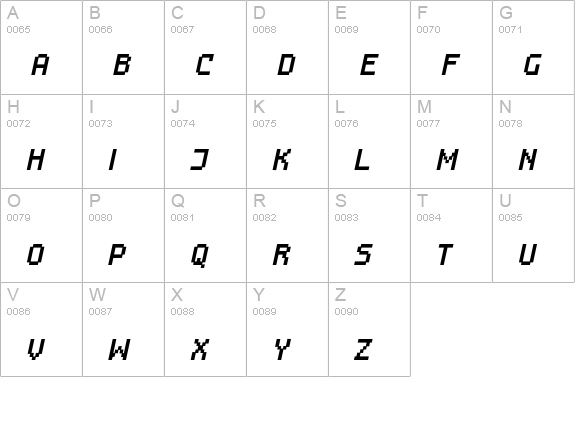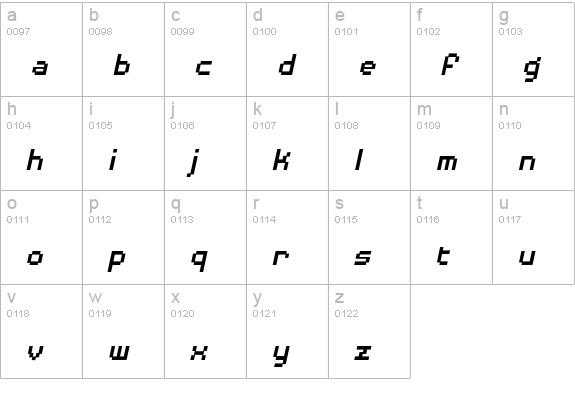
DisposableDroid BB Italic is a distinctive, italic variant in the DisposableDroid typeface family \xE2\x80\x94 well suited to design and typography projects.
Introducing DisposableDroid BB Italic font, an exquisite typeface designed for those seeking a unique and futuristic touch to their projects. This font embodies the perfect blend of elegance and modernity, making it ideal for various creative endeavors. With its sleek and sophisticated design, DisposableDroid BB Italic font adds a touch of professionalism to any branding, logo, or headline. Its italicized style lends a sense of movement and dynamism, capturing attention and leaving a lasting impression on your audience. What makes DisposableDroid BB Italic font even more remarkable is that it is available for free! That's right, you can easily download this exceptional font at FontsMarket.com. Whether you're a professional designer or simply an enthusiast looking to enhance your creations, this font offers an incredible opportunity to elevate your work without any cost. With its clean and legible characters, DisposableDroid BB Italic font ensures readability across various platforms and mediums, making it an excellent choice for both print and digital projects. Its versatility allows it to seamlessly adapt to different design styles, ranging from minimalistic to bold and adventurous. Experience the power of DisposableDroid BB Italic font and elevate your designs to new heights. Download it for free at FontsMarket.com today and unlock a world of creative possibilities.